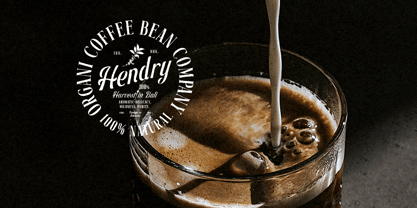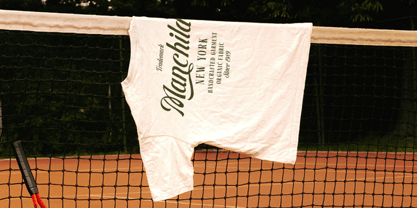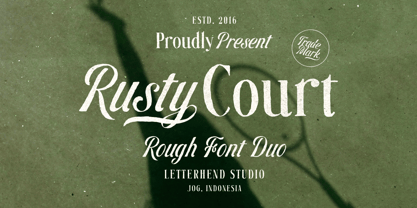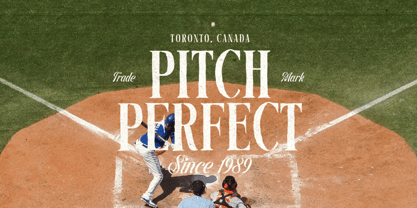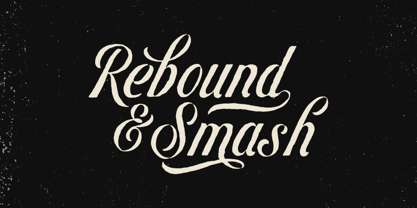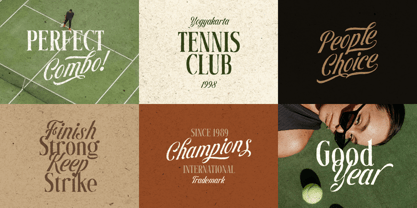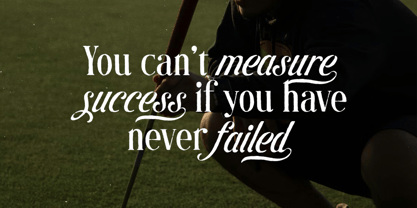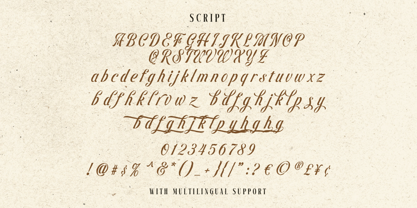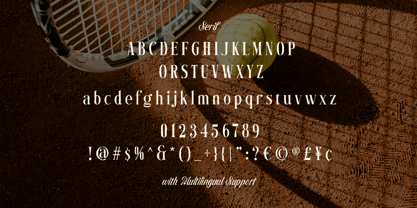
Rusty Court
by Letterhend
The Rusty Court Font Family was designed by Hendry Juanda and published by Letterhend. Rusty Court contains 2 styles and family package options. More about this family
Rusty Court is a textured script and serif pairing inspired by vintage sports posters and classic court signage. The lettering features rough edges, subtle distress details, and confident strokes that create an authentic, worn-in look. Rusty Court works perfectly for logos, event graphics, posters, packaging text, merchandise labels, signage, and branding projects that need a strong retro presence with a gritty finish. Features : Uppercase & lowercase Numbers and punctuation Alternates & Ligatures Multilingual Support PUA encoded
Designers: Hendry Juanda
Foundry: Letterhend